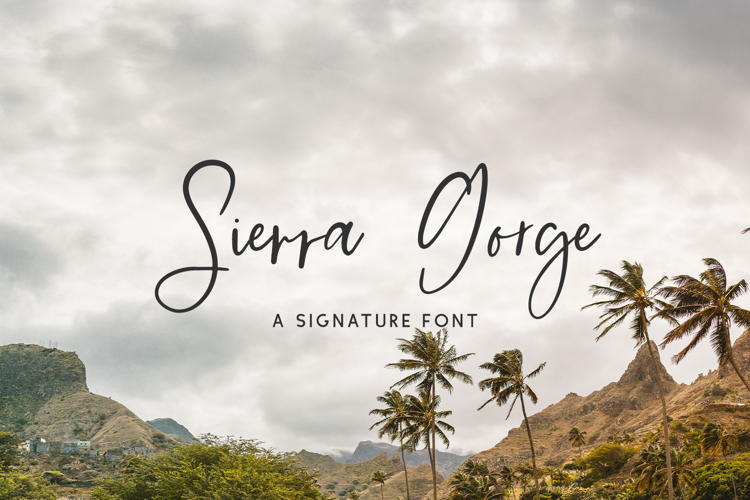
Introducing Sierra Gorge Script, a messy signature script. This script includes a full set of lowercase alternates and various alternates to enhance the handwritten appeal.
Sierra Gorge Script is best for:
- logos + branding for gender-neutral applications
- website design + website accents - think design blogs, travel blogs, fashion blogs, & more
Sierra Gorge includes:
- 26 alternates
- 18 ligatures - bb, cc, ch, dd, ed, ee, ff, gg, ll, mm, nn, oo, pp, rr, sl, ss, st, tt